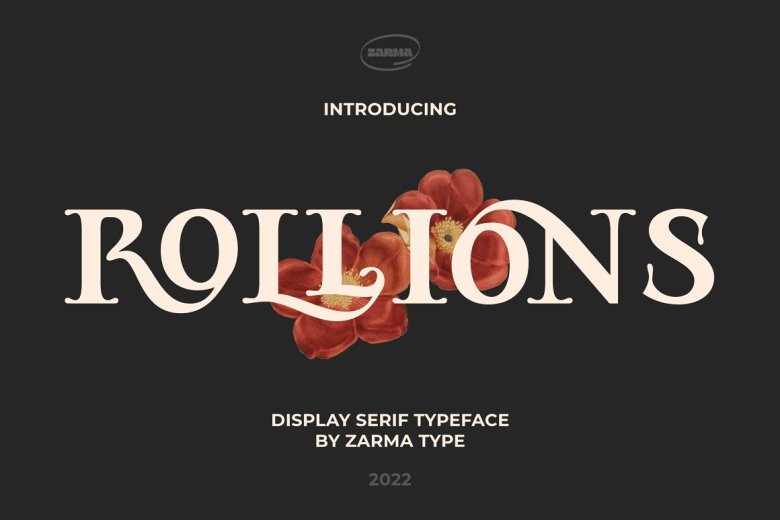
Rollions Font
Introducing, Rollions, one unique All-Caps display serif with beautiful rounded serif. This font have a Stylistic Sets and Discretionary Ligatures which adds to the aesthetic that makes your work more interesting.
The Multilingual supports helps your message reach wider audience.. As well as unique serif, it also looks stunning as a memorable logotype or header. Pair it with something contrasting and clean!.
Rollions Display Serif Font